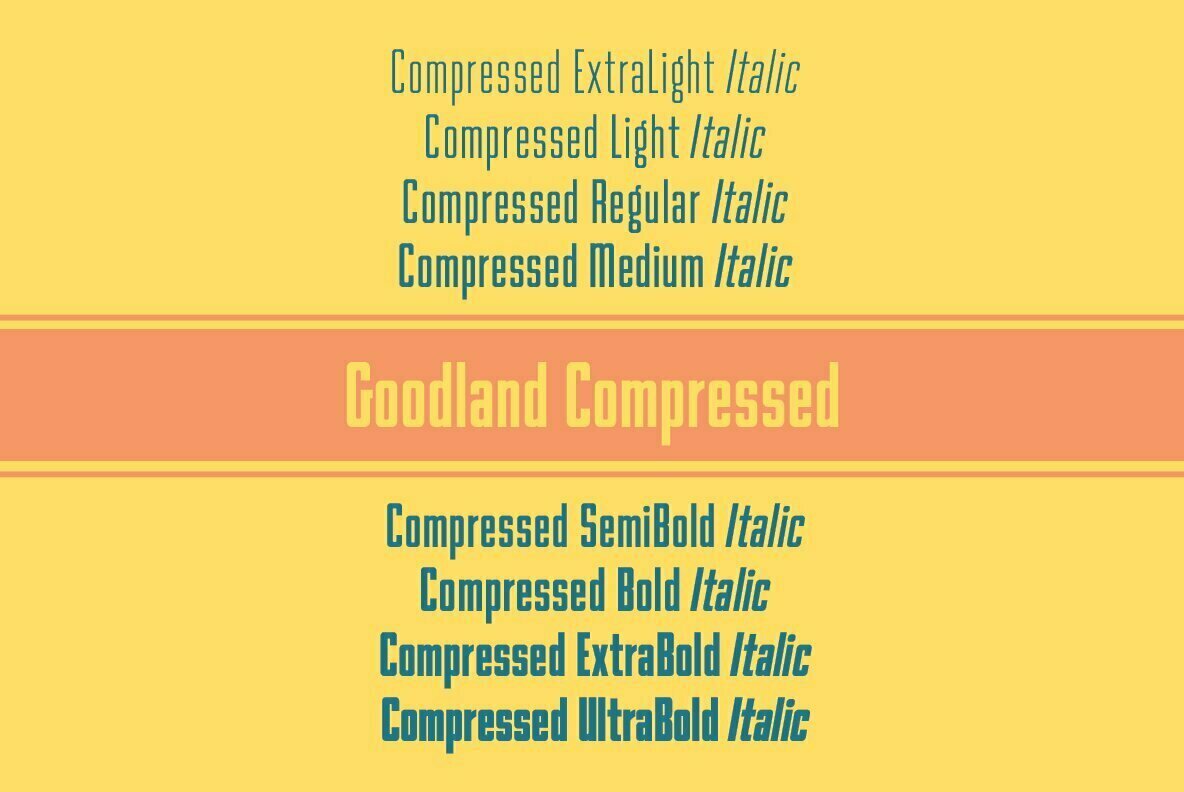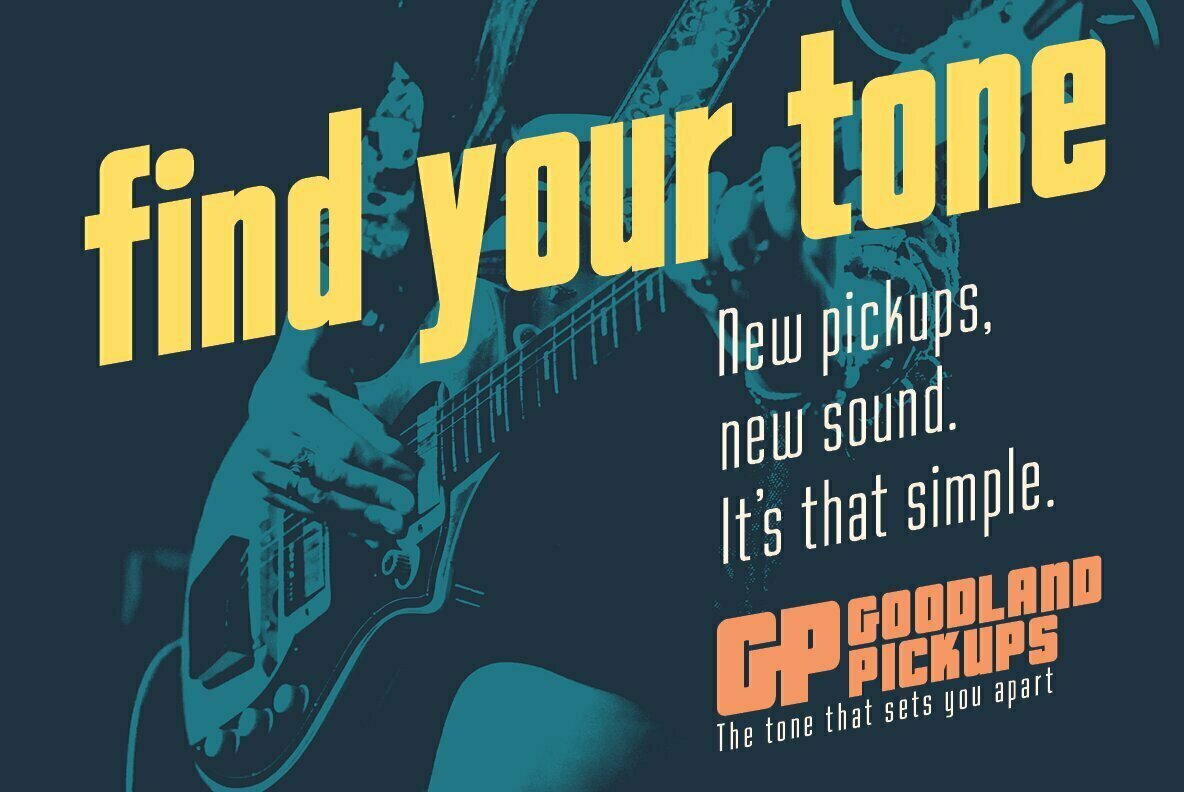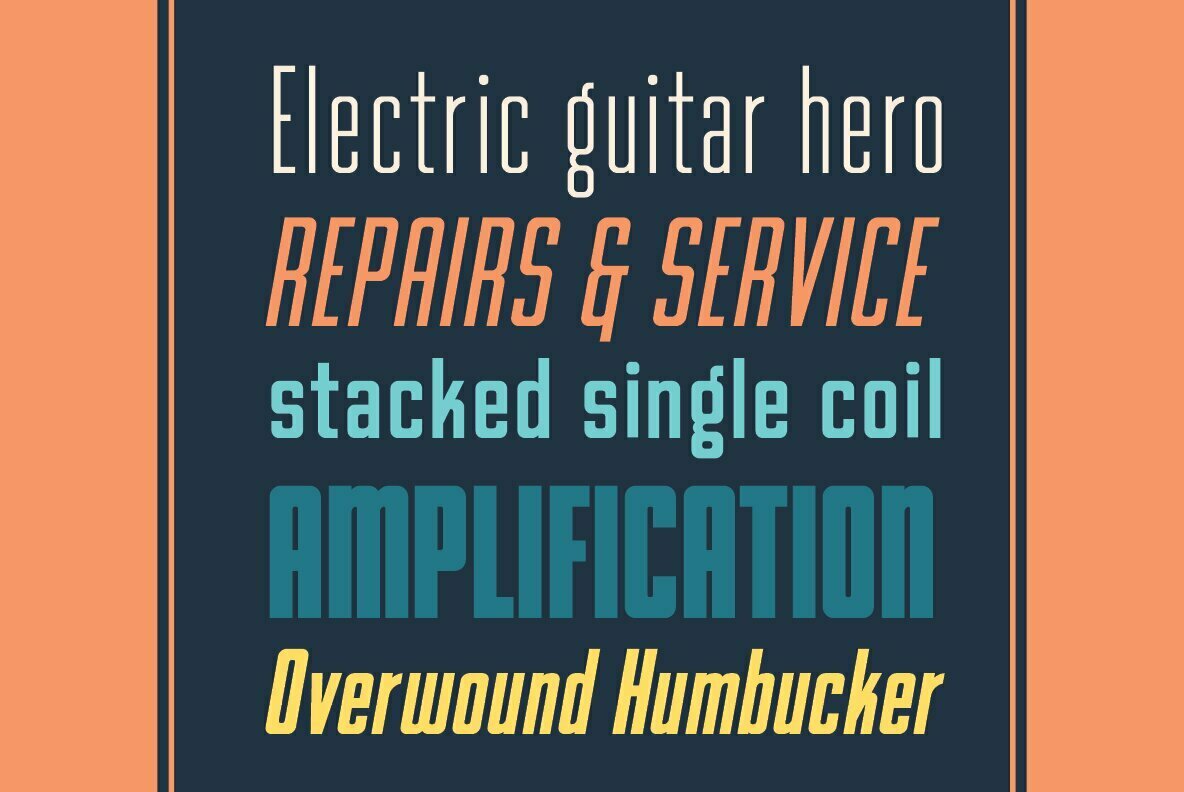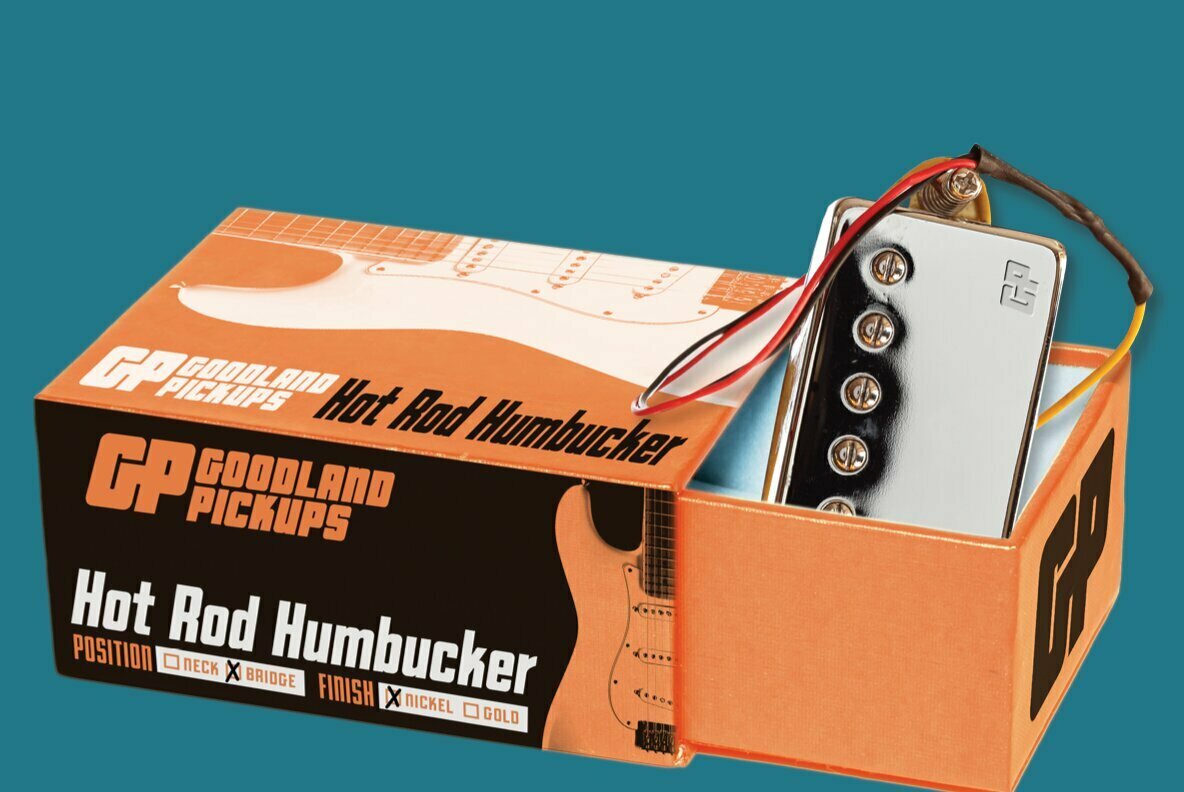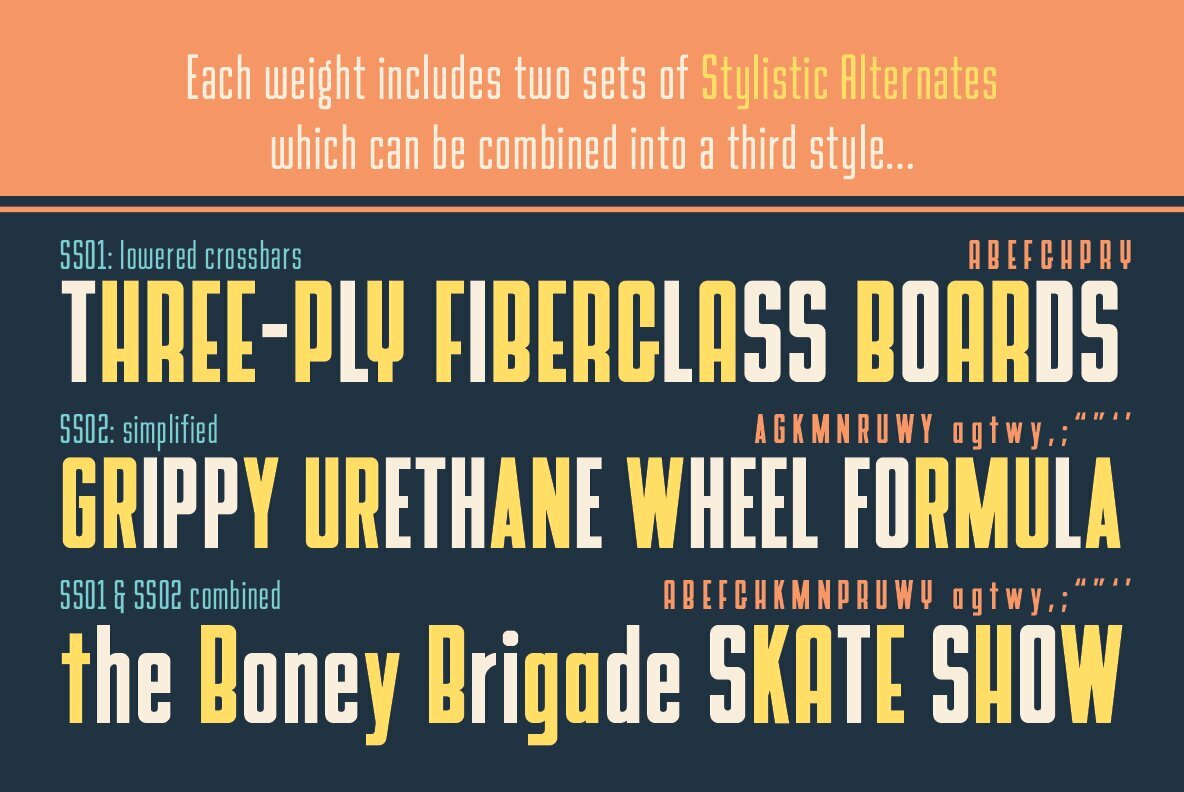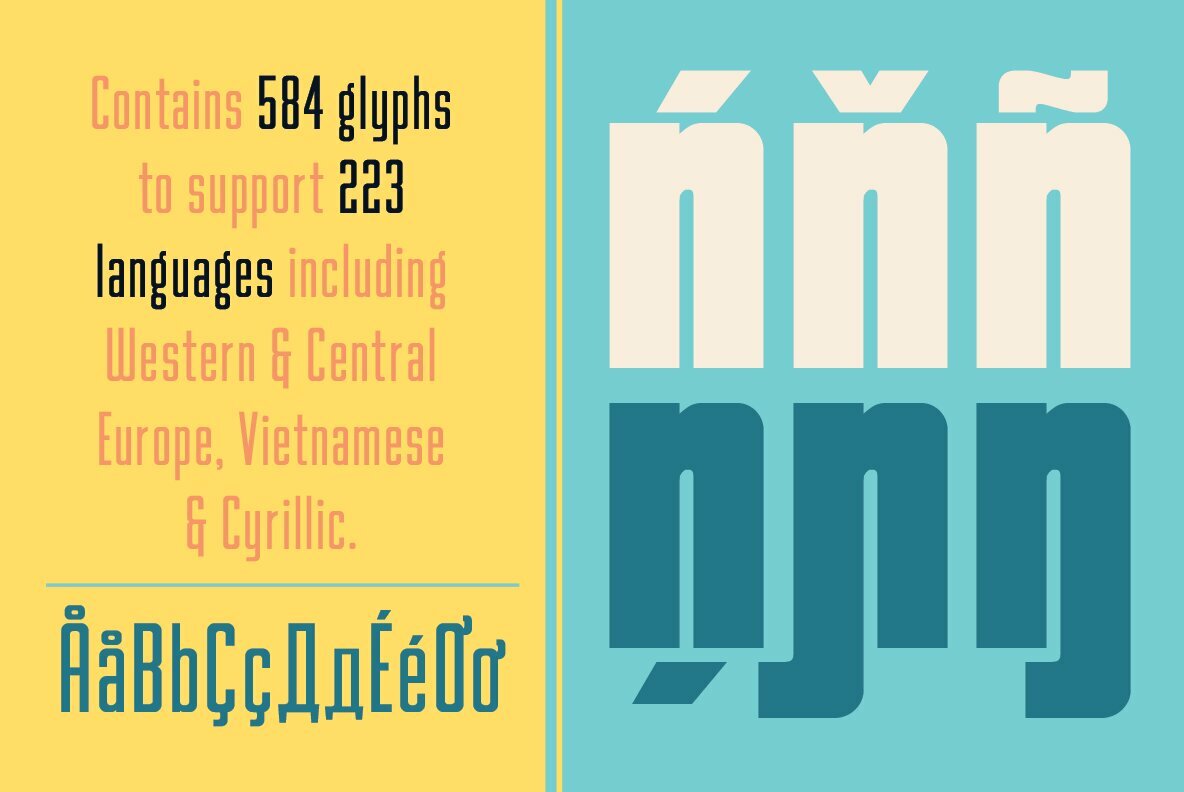
Goodland Compressed Font
Inspired by painted signs on industrial buildings in the town of goleta, california, goodland compressed combines a mid-20th century aesthetic with modern features.
Extreme light and bold weights stand out in headlines and display type, while the mid-range regular and medium make for easily readable body text on light or dark backgrounds. Dial in the exact look you need with stylistic alternates.
Built tall and strong, the goodland font family is ready to do the heavy lifting in your next design project!